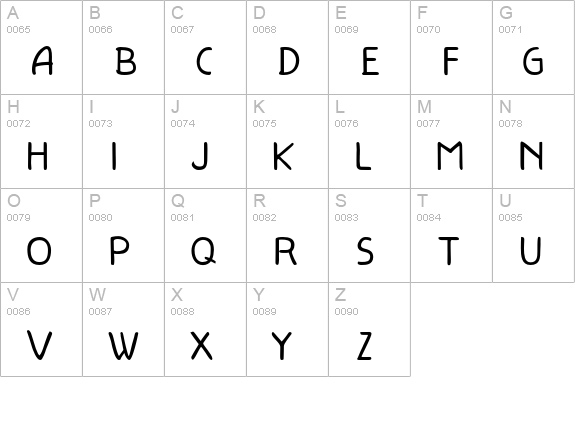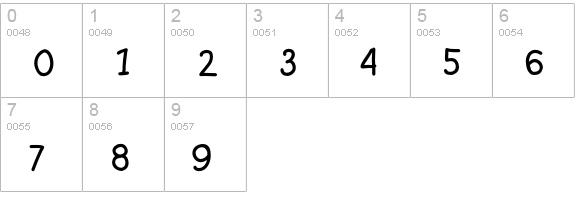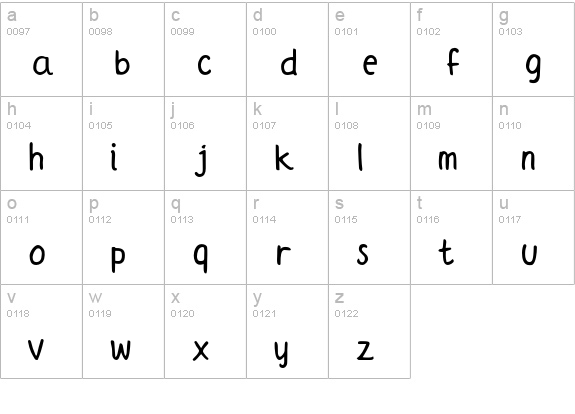
sava Font Details
Sava font is a versatile and elegant typeface that combines modern simplicity with a touch of classic charm. Its clean lines and sophisticated design make it perfect for a wide range of projects, from branding to editorial design. With a timeless appeal and a contemporary twist, Sava font is sure to make your text stand out and capture the attention of your audience.